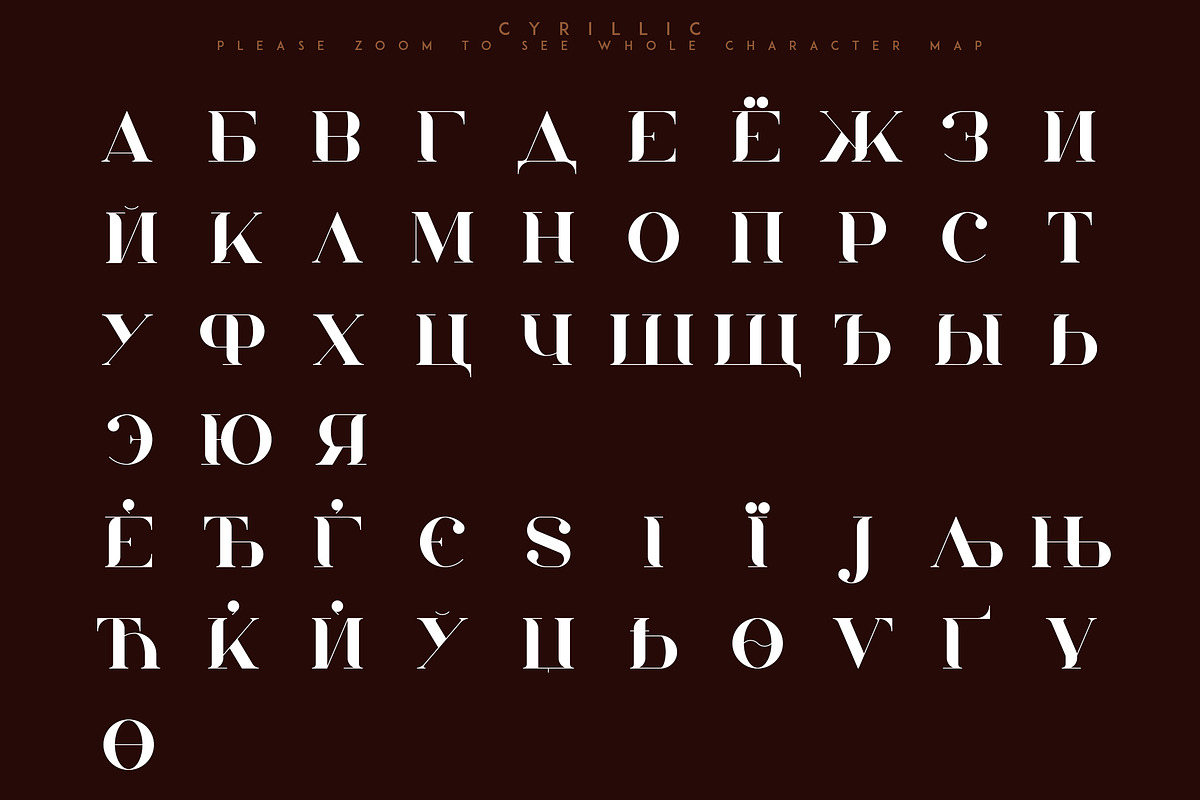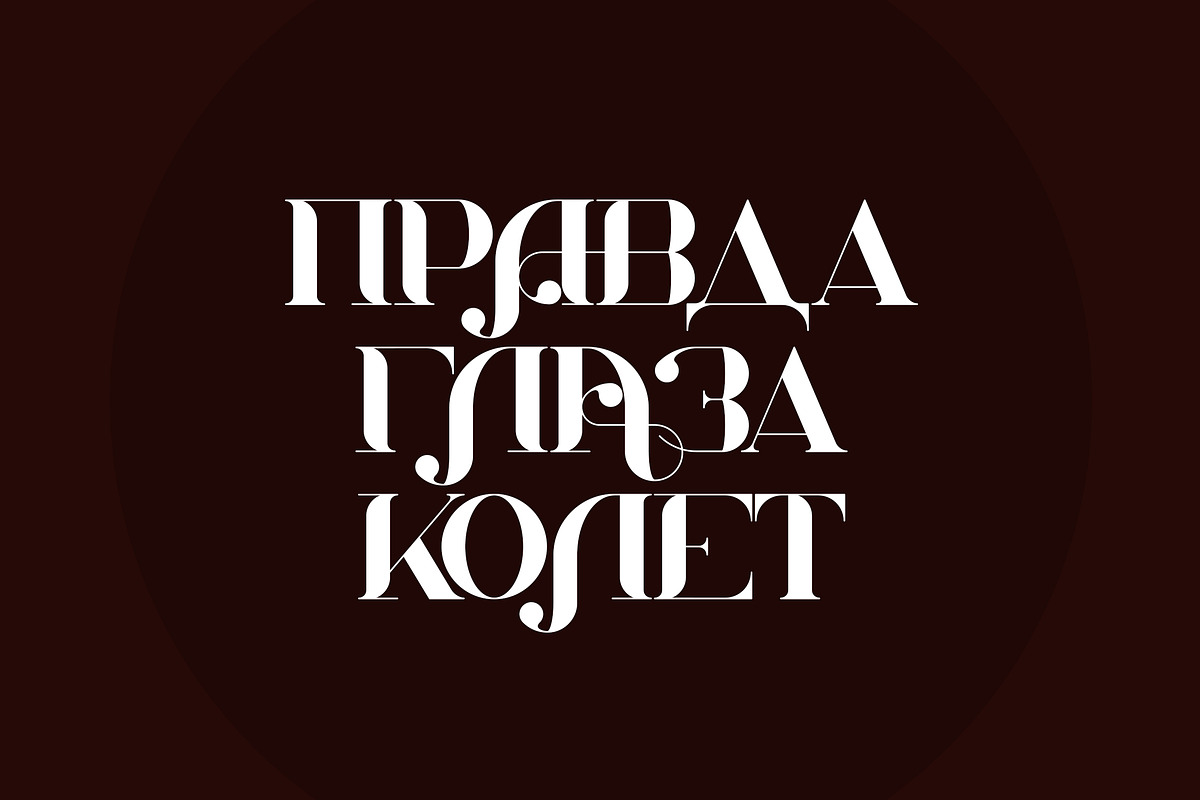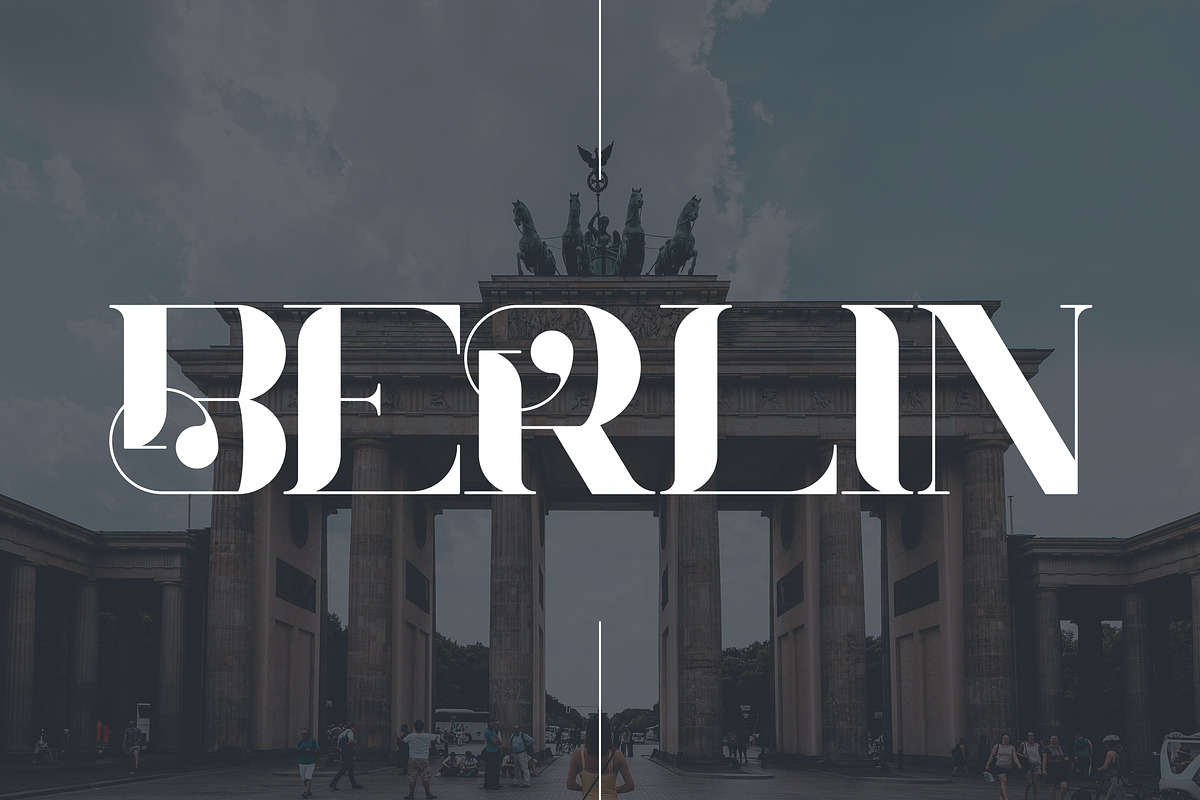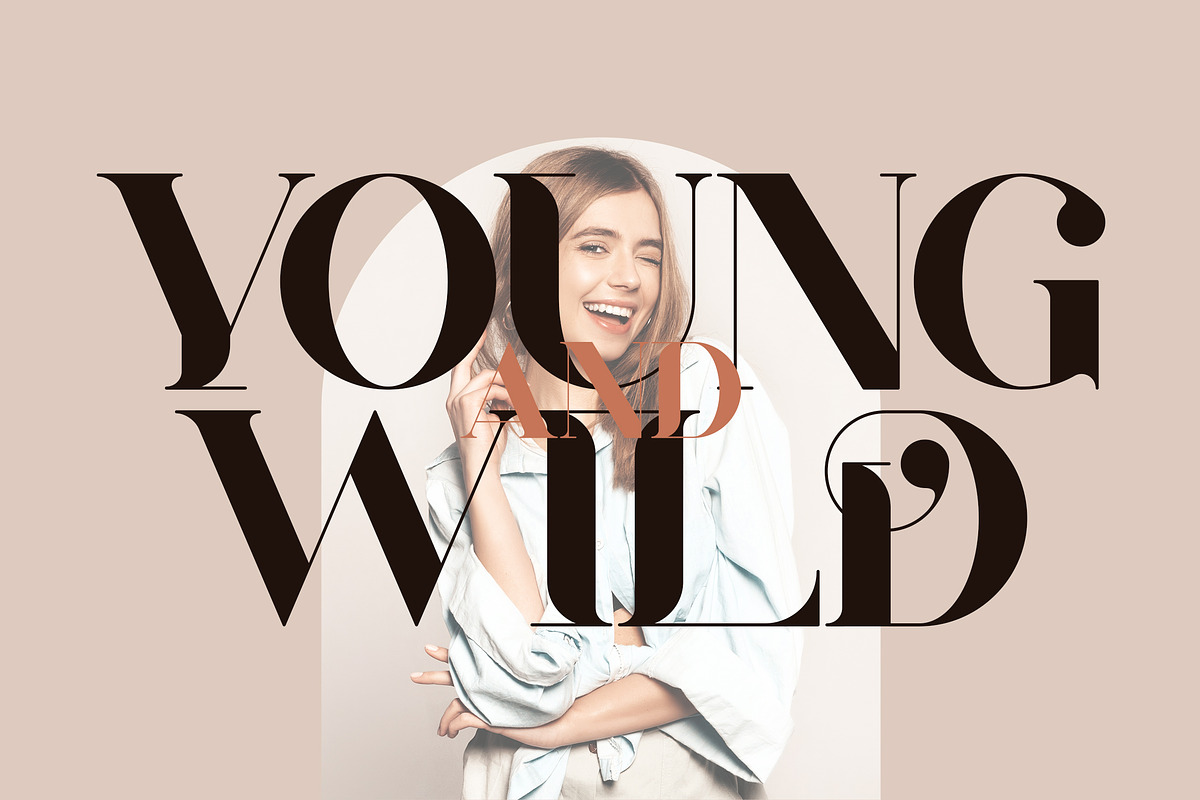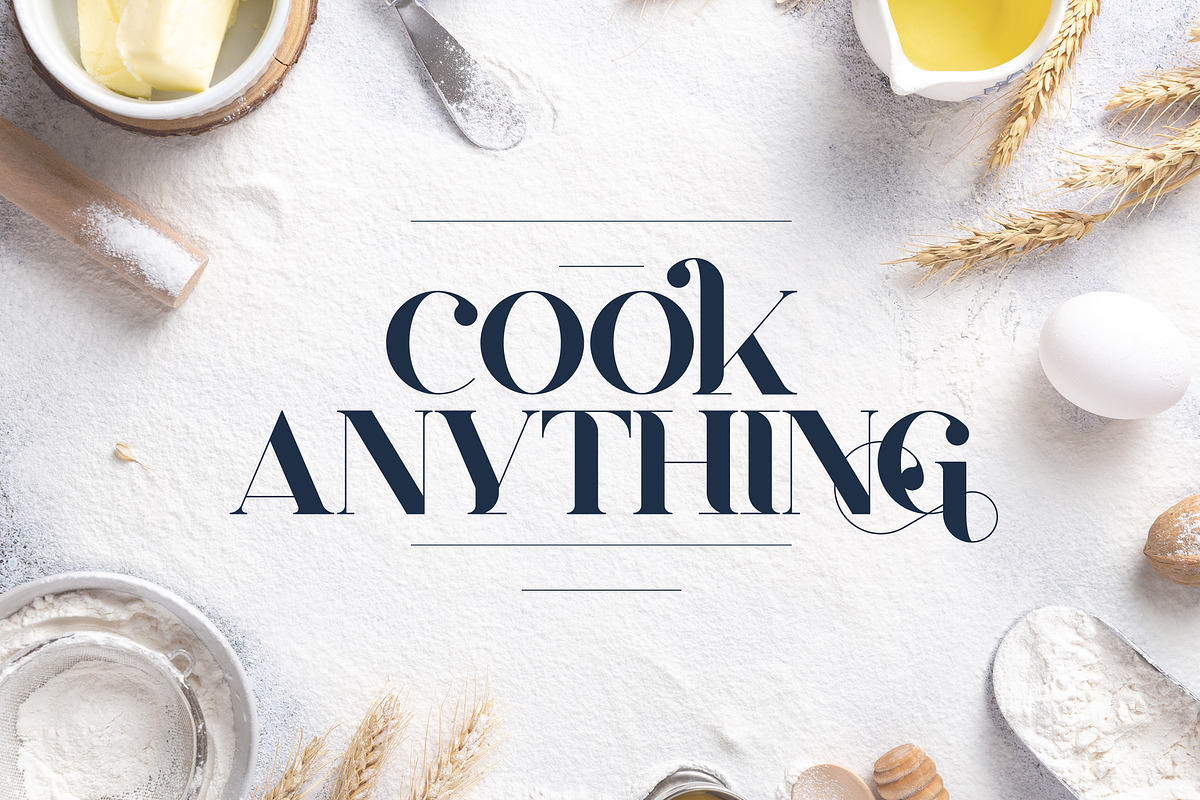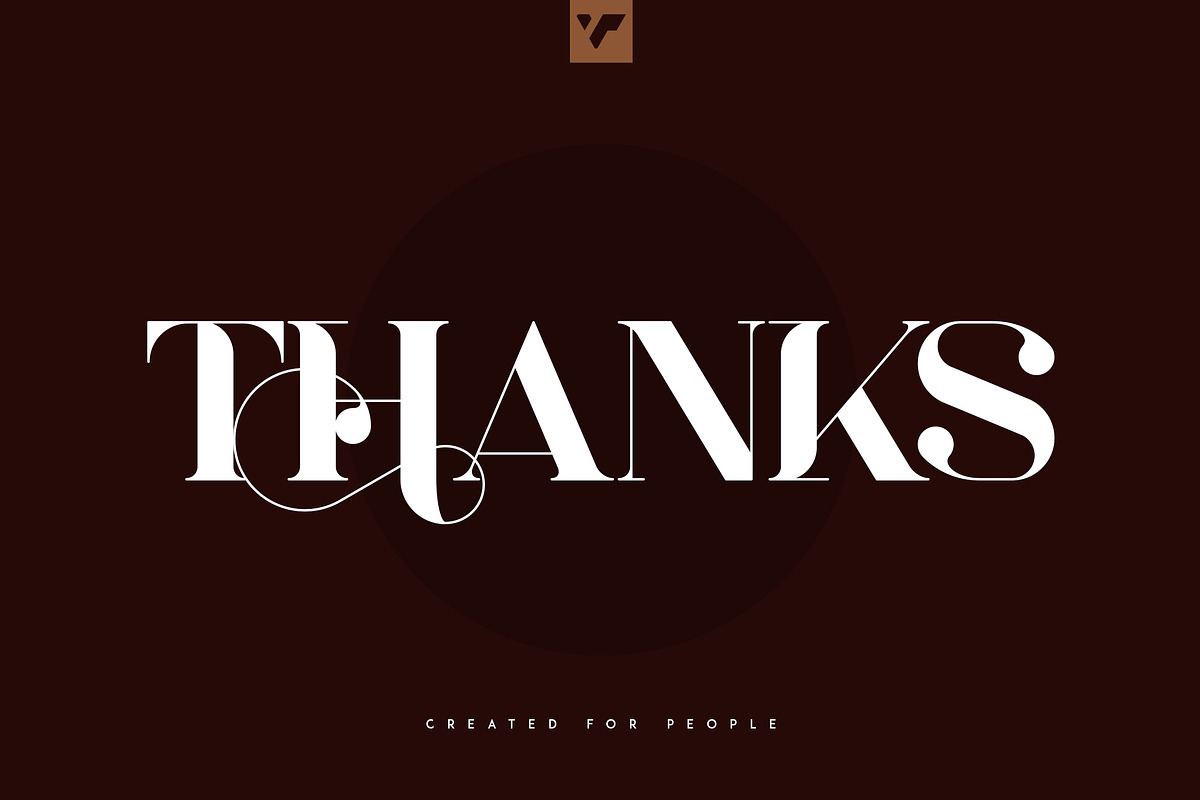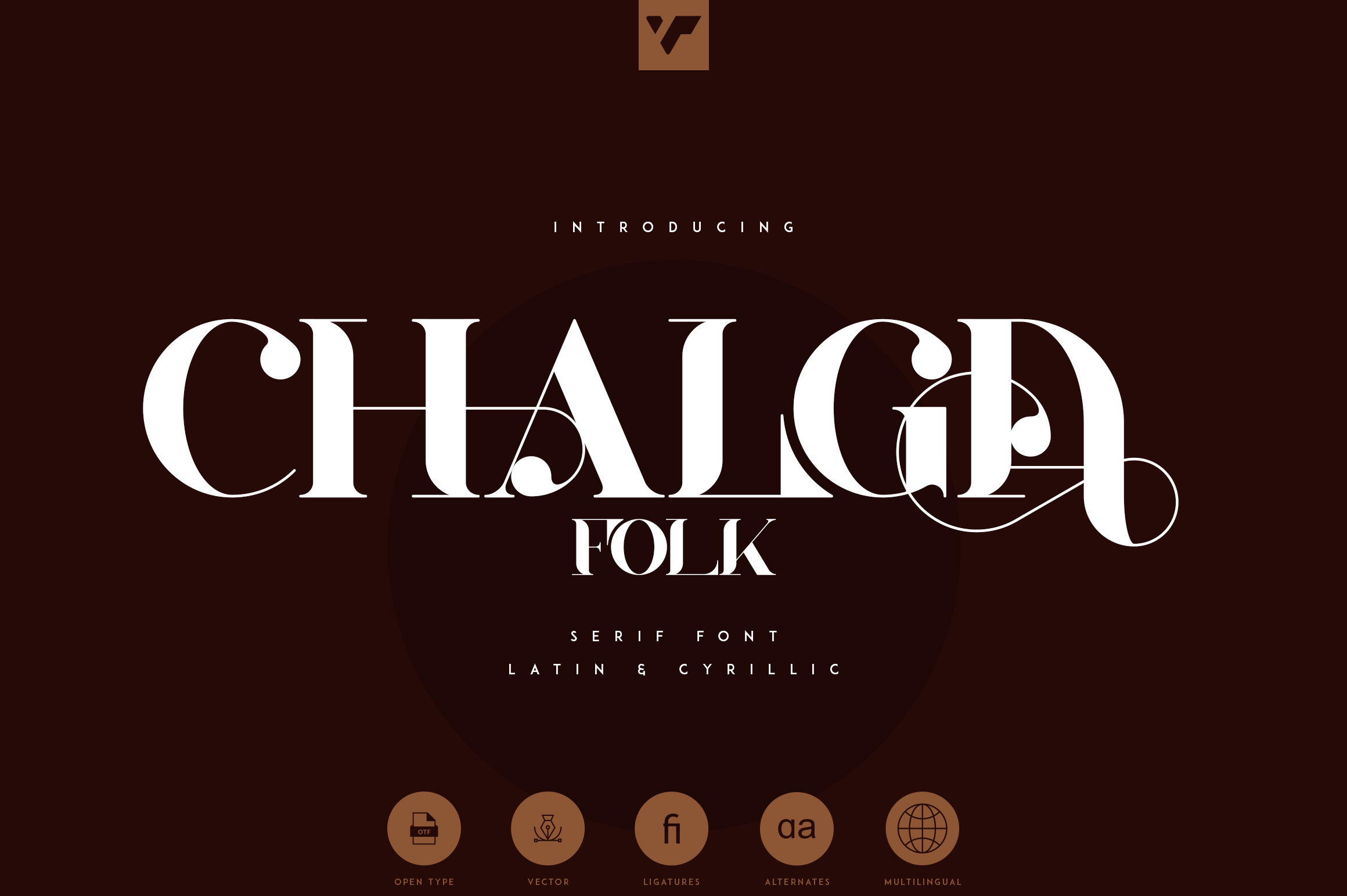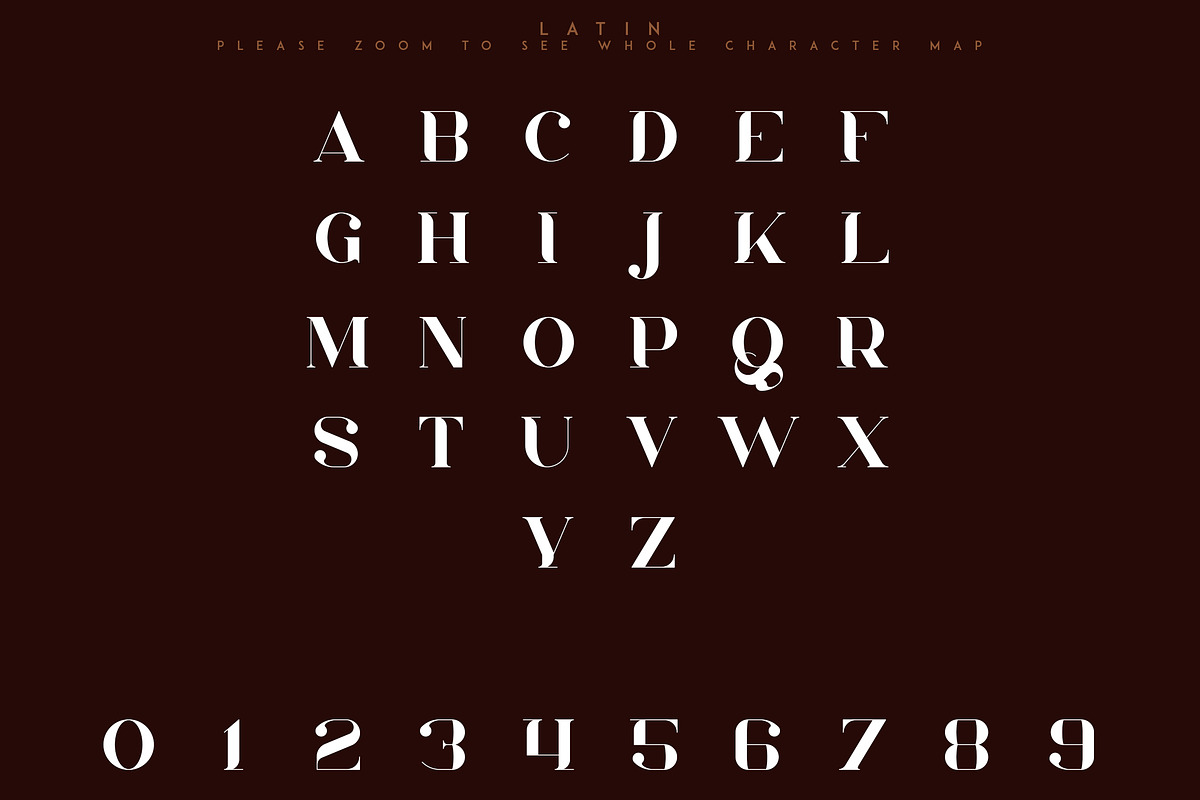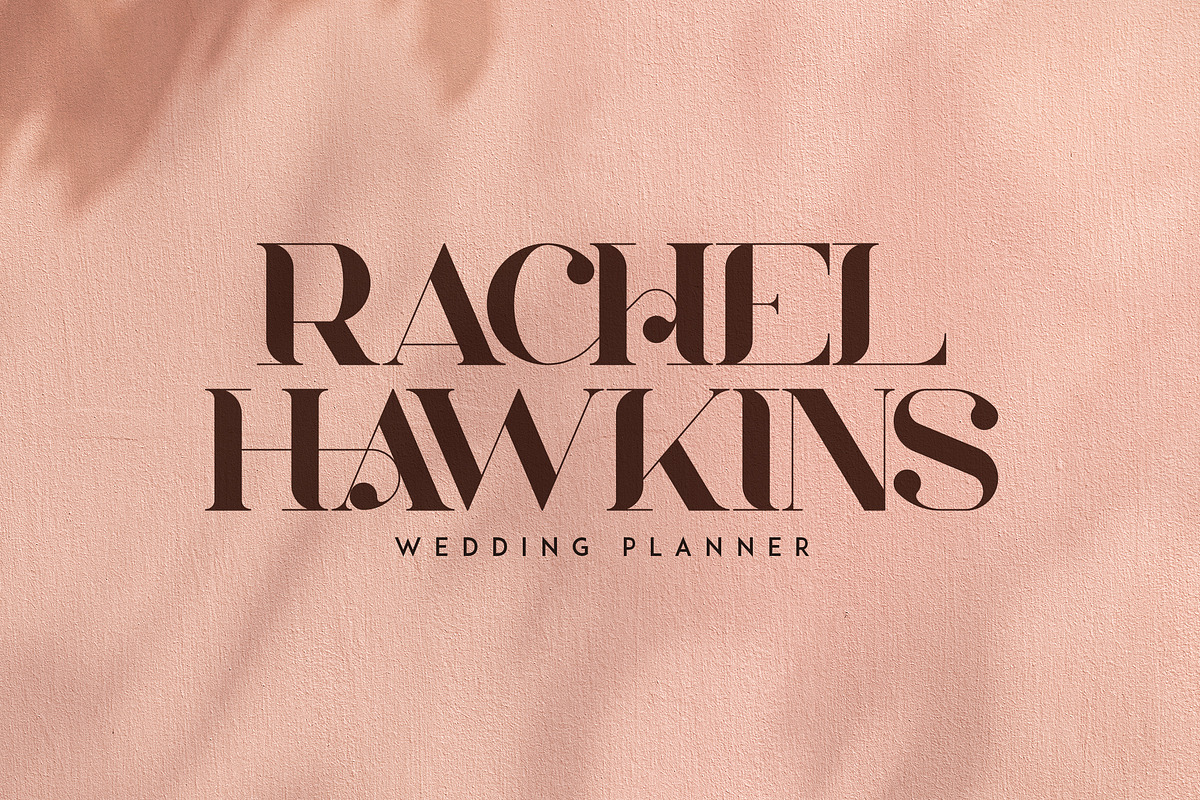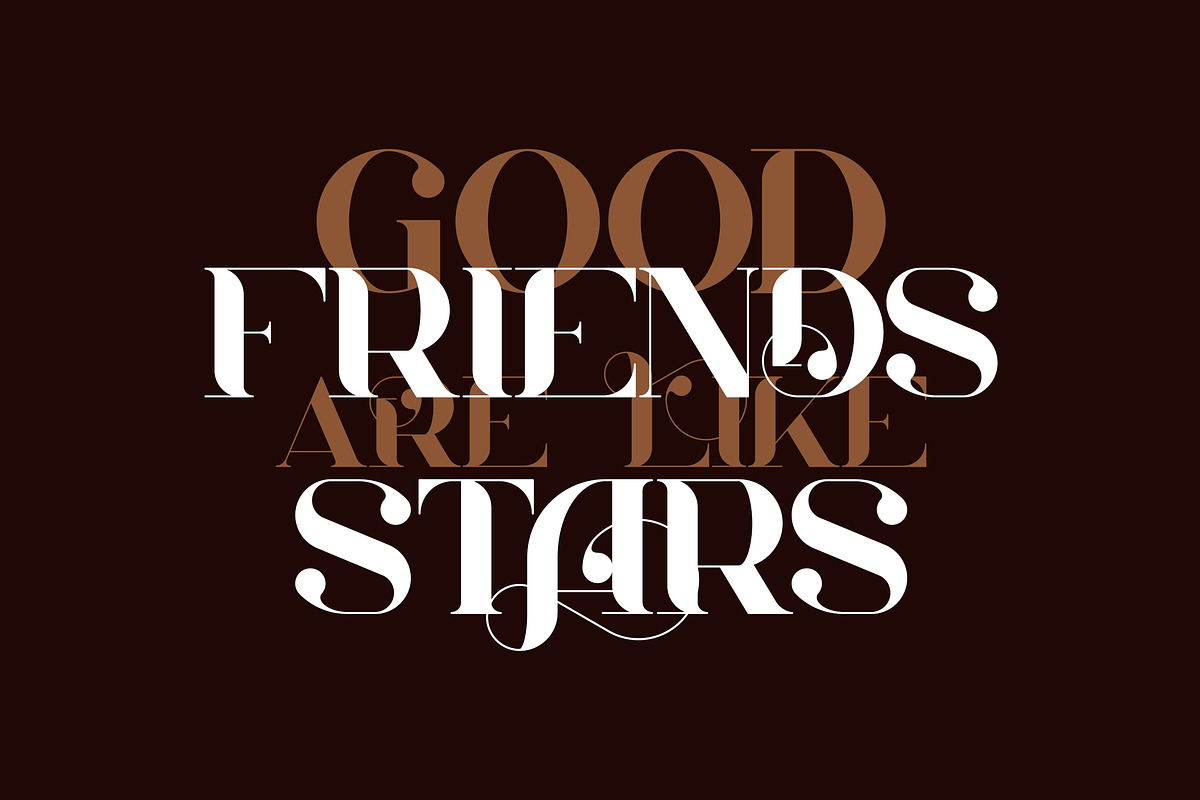
Chalga Folk Edition - Serif font
Introducing Chalga Folk Edition - Serif font - Latin and Cyrillic support
Chalga Folk is elegant, vintage typeface that contains ligatures and alternate glyphs to enchant your next project. Chalga Folk have basic latin, advanced latin, basic Cyrillic and advanced Cyrillic character sets. Very versatile fonts that works great in large and small sizes.
Chalga Folk is perfect for branding projects, home-ware designs, product packaging, magazine headers - or simply as a stylish text overlay to any background image.
- Uppercase, numeral, punctuation & Symbol
- Basic and advanced latin character sets
- Basic and advanced Cyrillic character sets
- Alternate Glyphs
- Ligature Glyphs